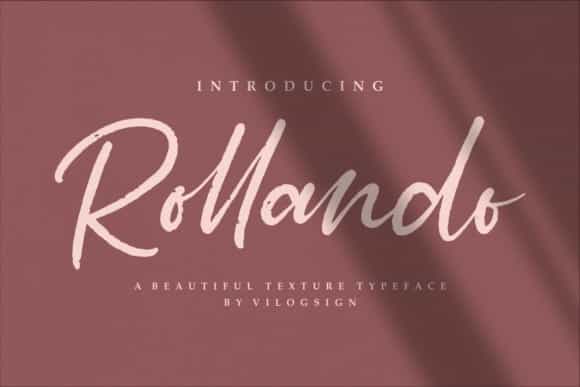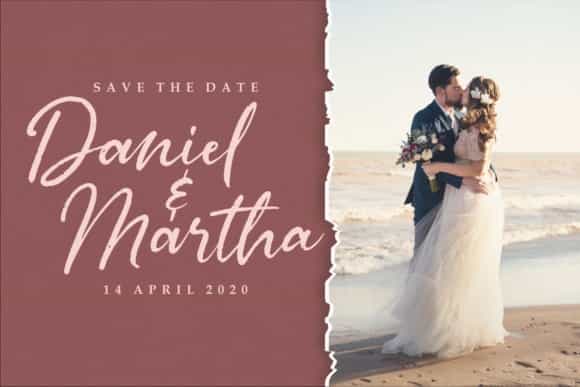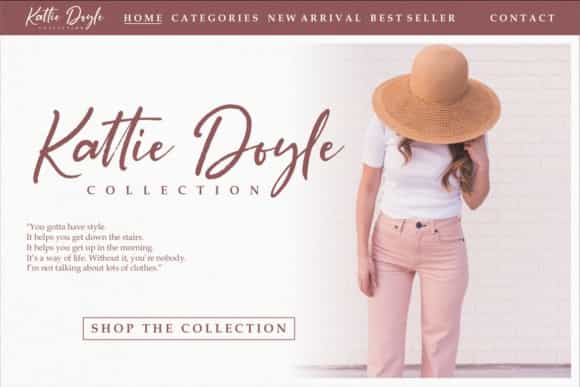
Discover Rollando Script Font, part of the Brush Handwritten collection—a versatile and unique font perfect for adding a personal touch to your projects. Download it for free and enjoy crafting designs with style, from invitations to social media posts. This font is available exclusively for personal use, giving you the freedom to create without limits. Unlock your creativity with Rollando Script Font today!
Rollando is a textured brush font, the contemporary design based on natural handcrafted with an irregular baseline. It is great for title design. These could be apparel, invitations, books tittle design, stationery design, quotes creation and many others.